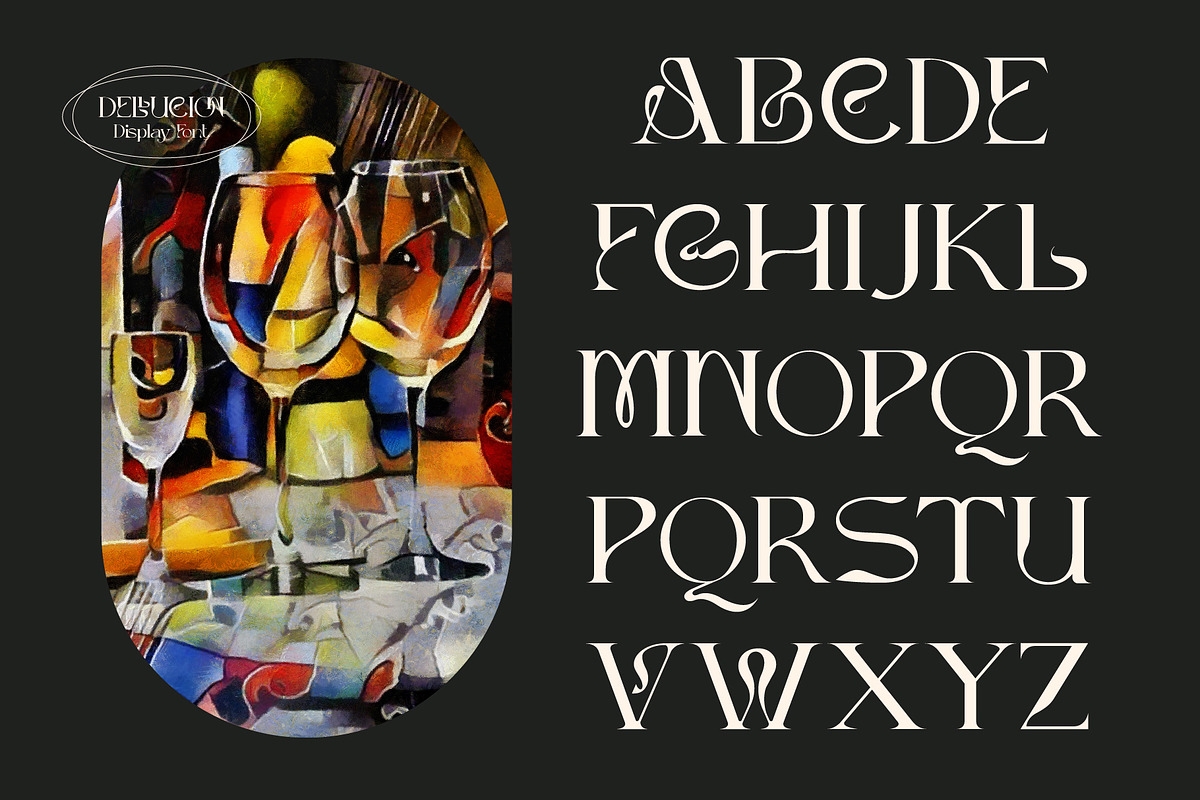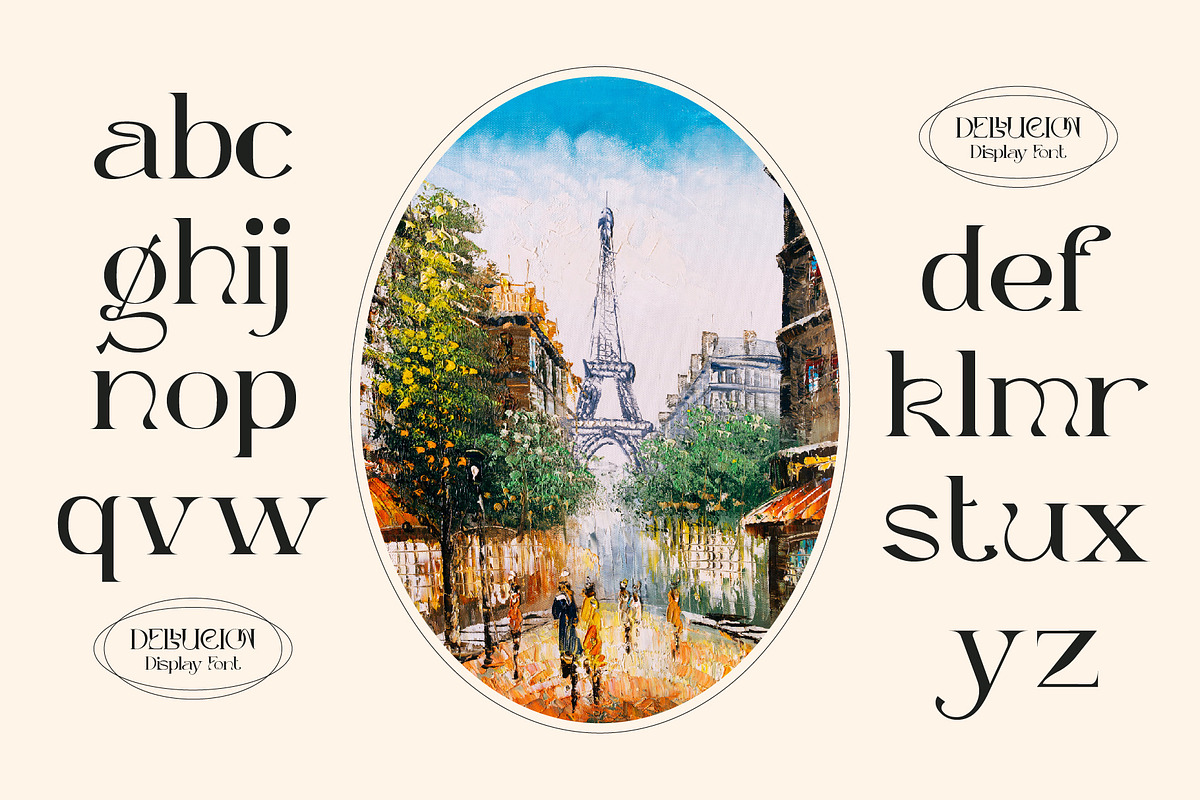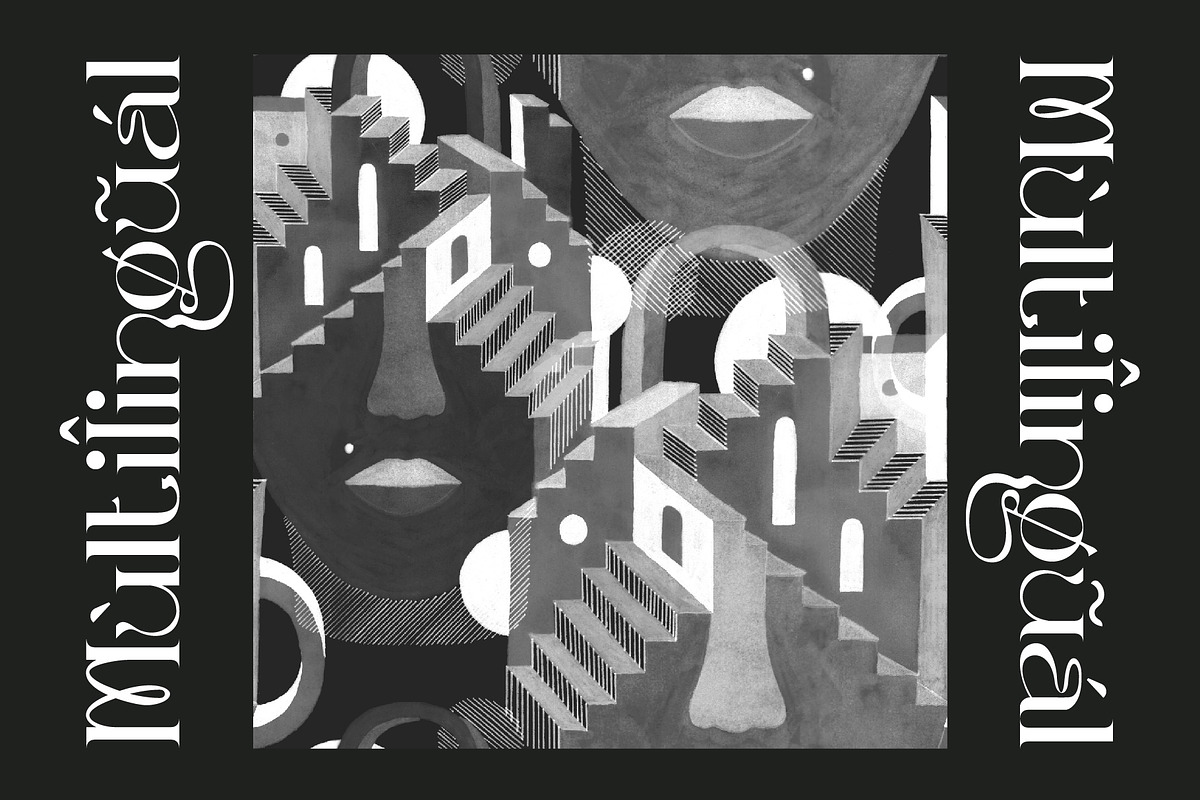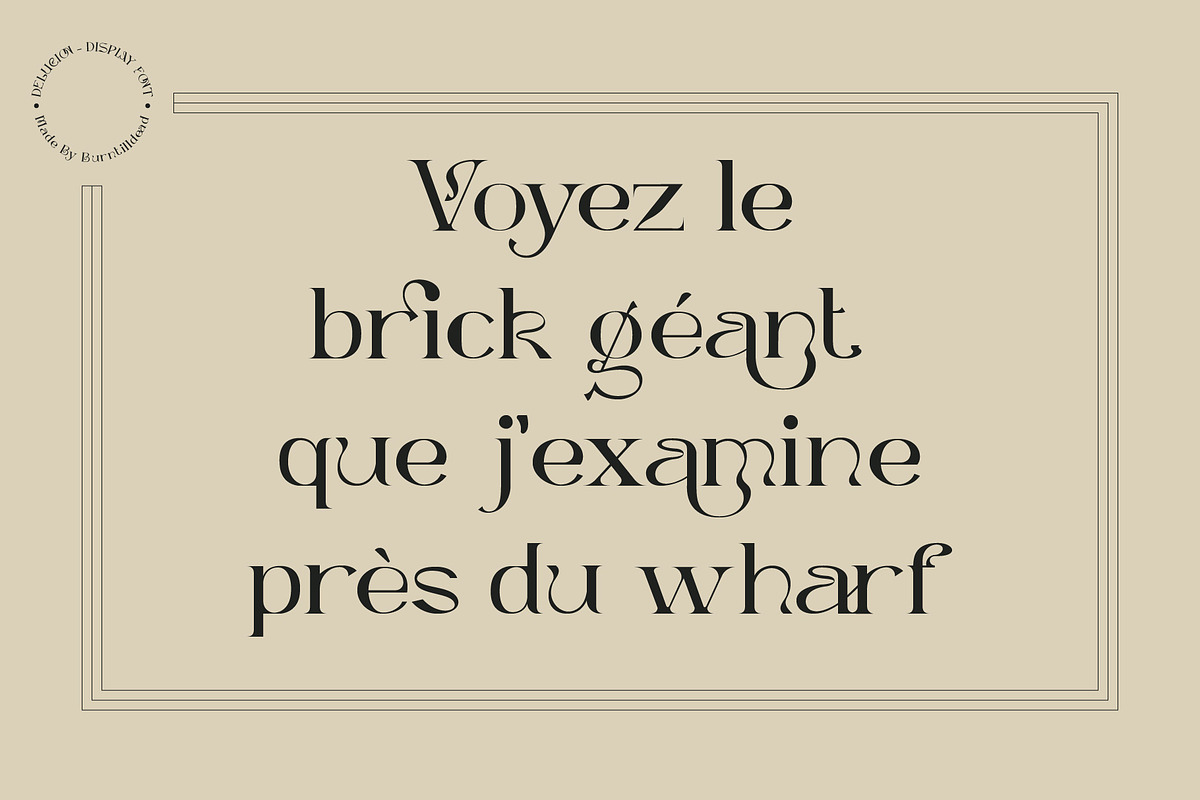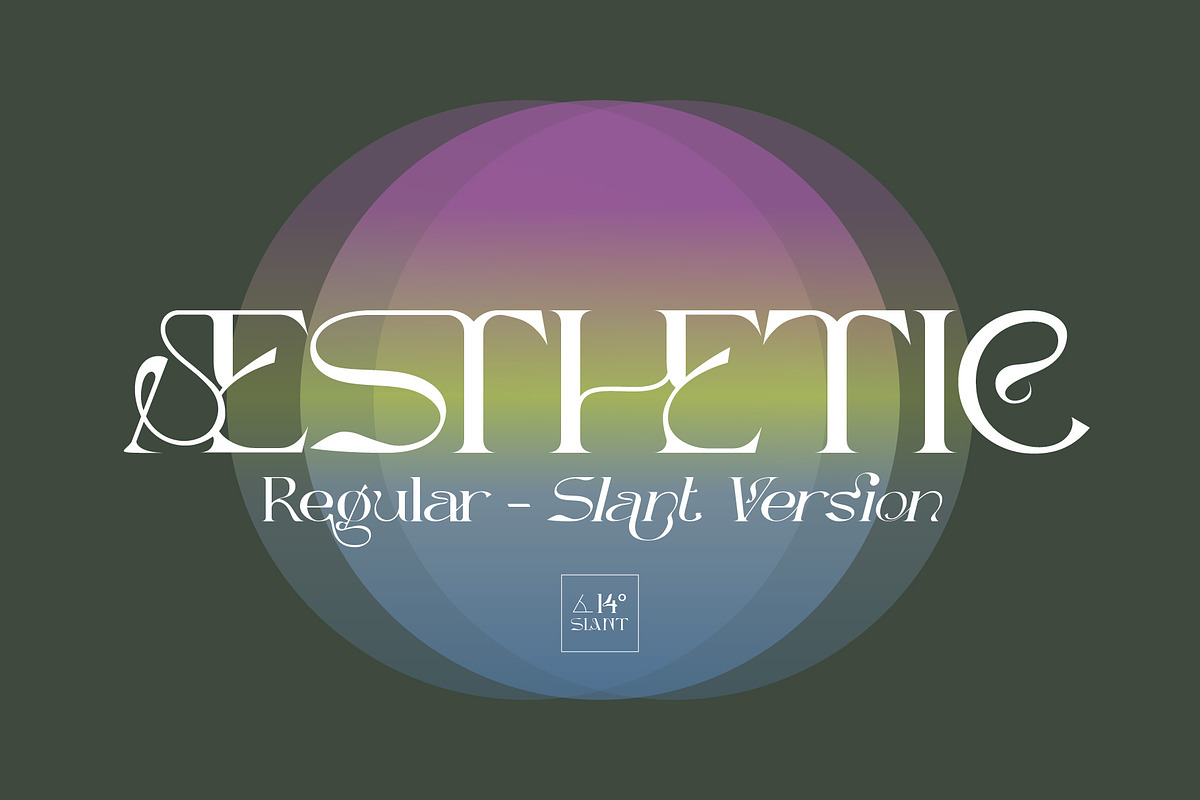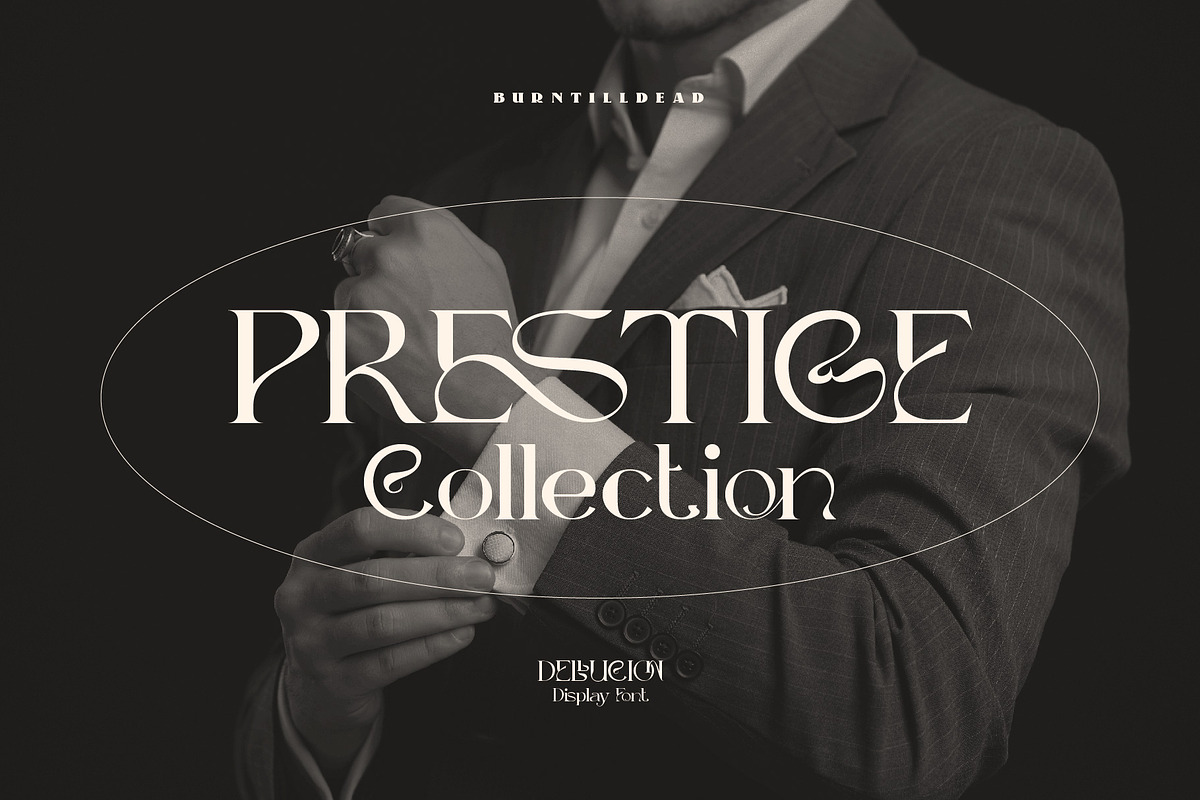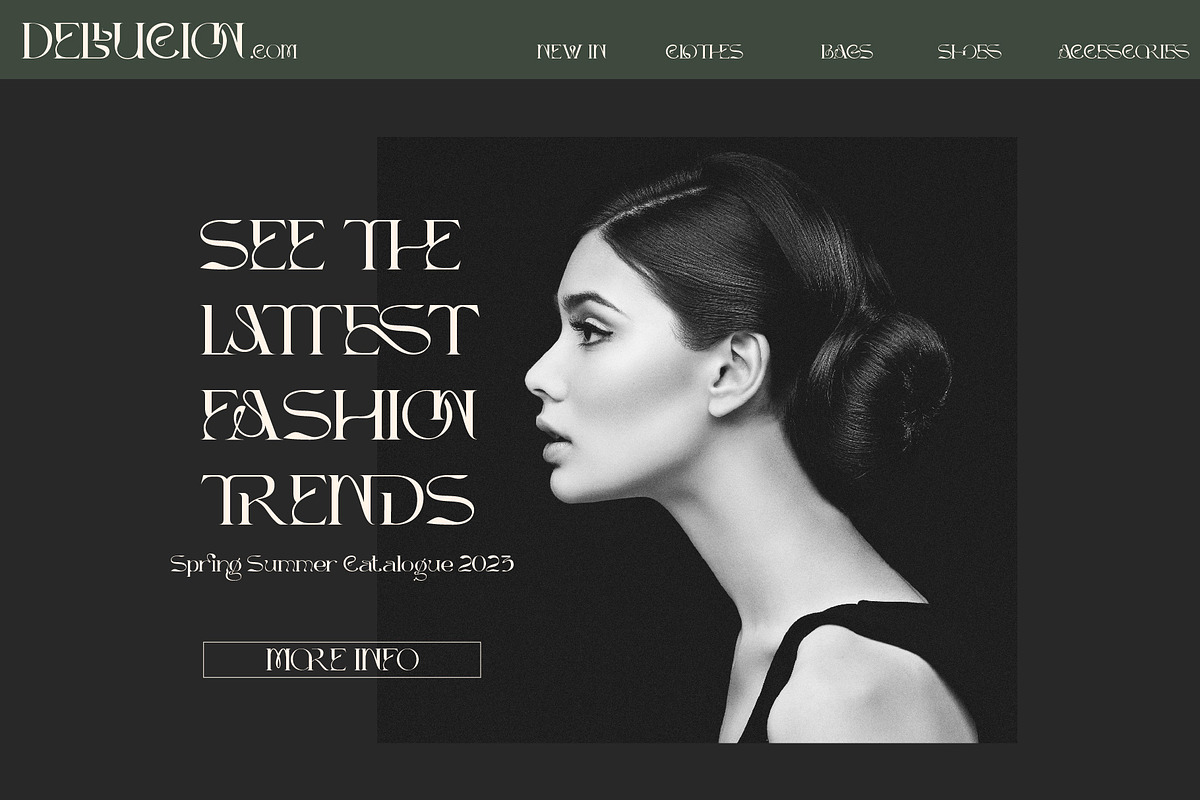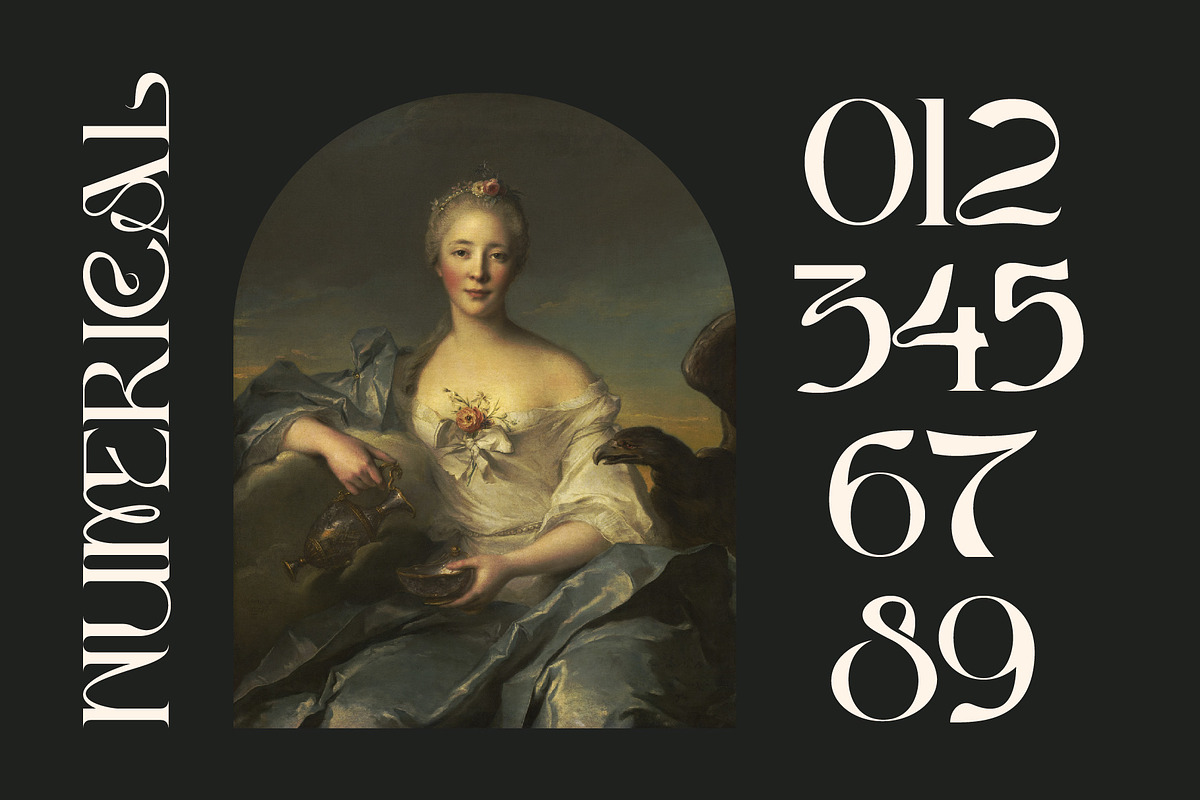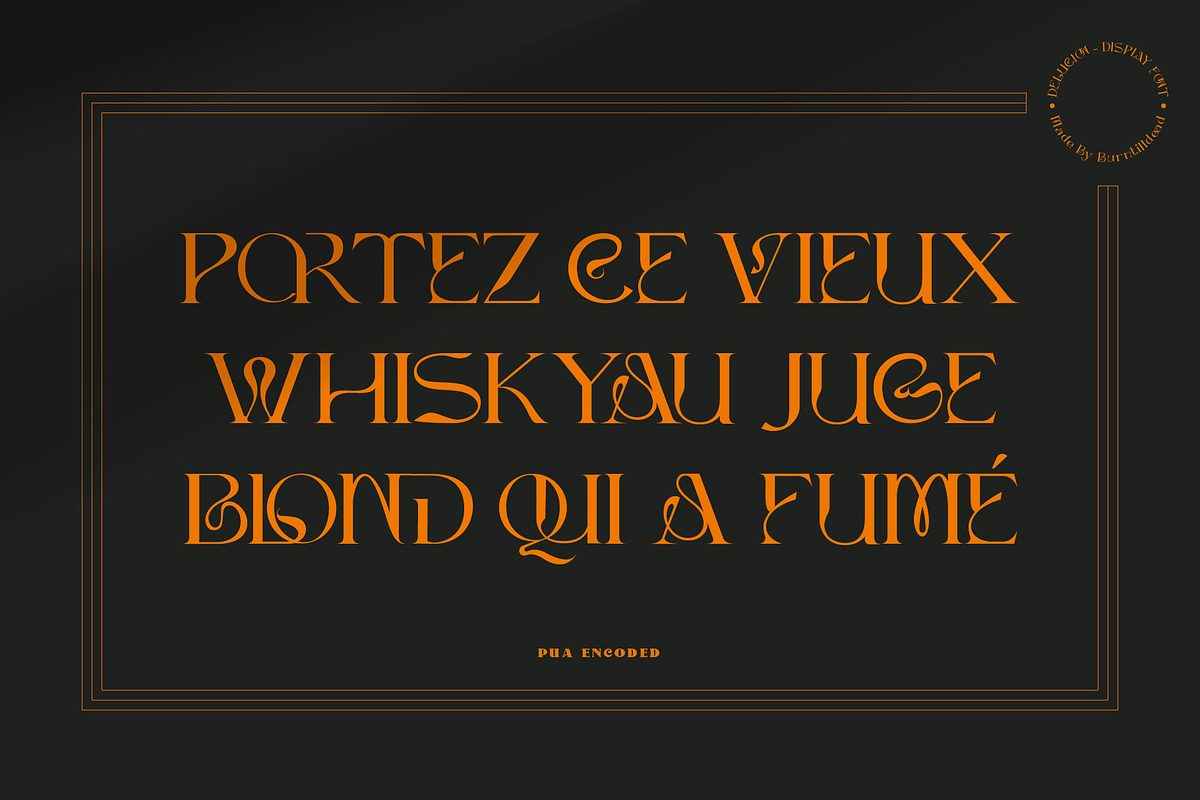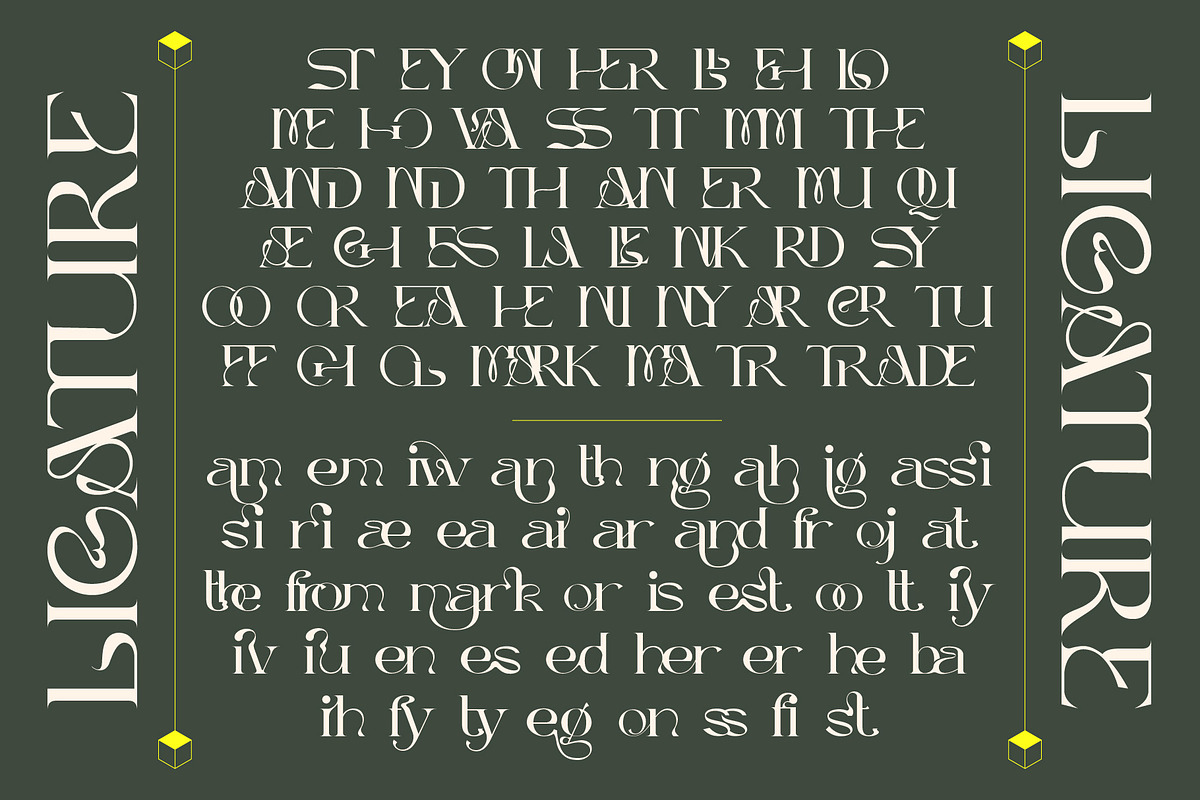
Dellucion
“Dellucion” typeface powered with 90 ligatures to bring fluent looks combination.
Perfect and suitable for branding, headline, logotype, sticker, editorial design, and etc.
Multi languages included: Afrikaans, Albanian, Asu, Basque, Bemba, Bena, Cebuano, Chiga, Cornish, Corsican, Danish, Embu, English, Estonian, Filipino, Finnish, French, Friulian, Galician, German, Gusii, Ido, Indonesian, Interlingua, Irish, Italian, Javanese, Jju, Kabuverdianu, Kalaallisut, Kalenjin, Kamba, Kikuyu, Kinyarwanda, Kurdish, Lojban, Low German, Luo, Luxembourgish, Luyia, Machame, Makhuwa-Meetto, Makonde, Malagasy, Malay, Manx, Meru, Morisyen, North Ndebele, Northern Sotho, Norwegian Bokmål, Norwegian Nynorsk, Nyanja, Nyankole, Occitan, Oromo, Portuguese, Romansh, Rombo, Rundi, Rwa, Samburu, Sango, Sangu, Sardinian, Scottish Gaelic, Sena, Shambala, Shona, Slovenian, Soga, Somali, South Ndebele, Southern Sotho, Spanish, Swahili, Swati, Swedish, Swiss German, Taita, Taroko, Teso, Tsonga, Tswana, Turkmen, Vunjo, Walloon, Walser, Xhosa, Zulu
A-Z Character Set
a-z Characters set
Numerals & Punctuations (OpenType Standard)
90 ligatures